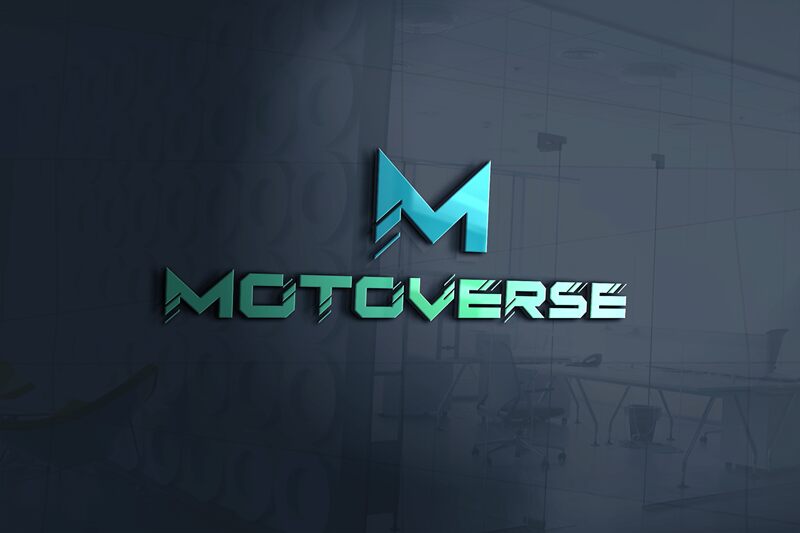
Introducing MOTO VERSE, a bold and extra-expanded techno display font designed by EyeCone. With its futuristic aesthetic, this font is perfect for projects that require a strong and dynamic presence. Capture attention with eye-catching headlines, logos, or posters that demand to be noticed. Whether you're creating sci-fi movie titles, electronic music album covers, or innovative tech websites, MOTO VERSE will elevate your designs to the next level. Its bold weight and extra-expanded width make it an ideal choice for projects that require a modern and edgy touch. Get ready to unleash the power of MOTO VERSE!
Moto Verse is a bold, thick lettered and futuristic display font. It works incredibly well on logos, branding or pretty much anything that requires a modern vibe.